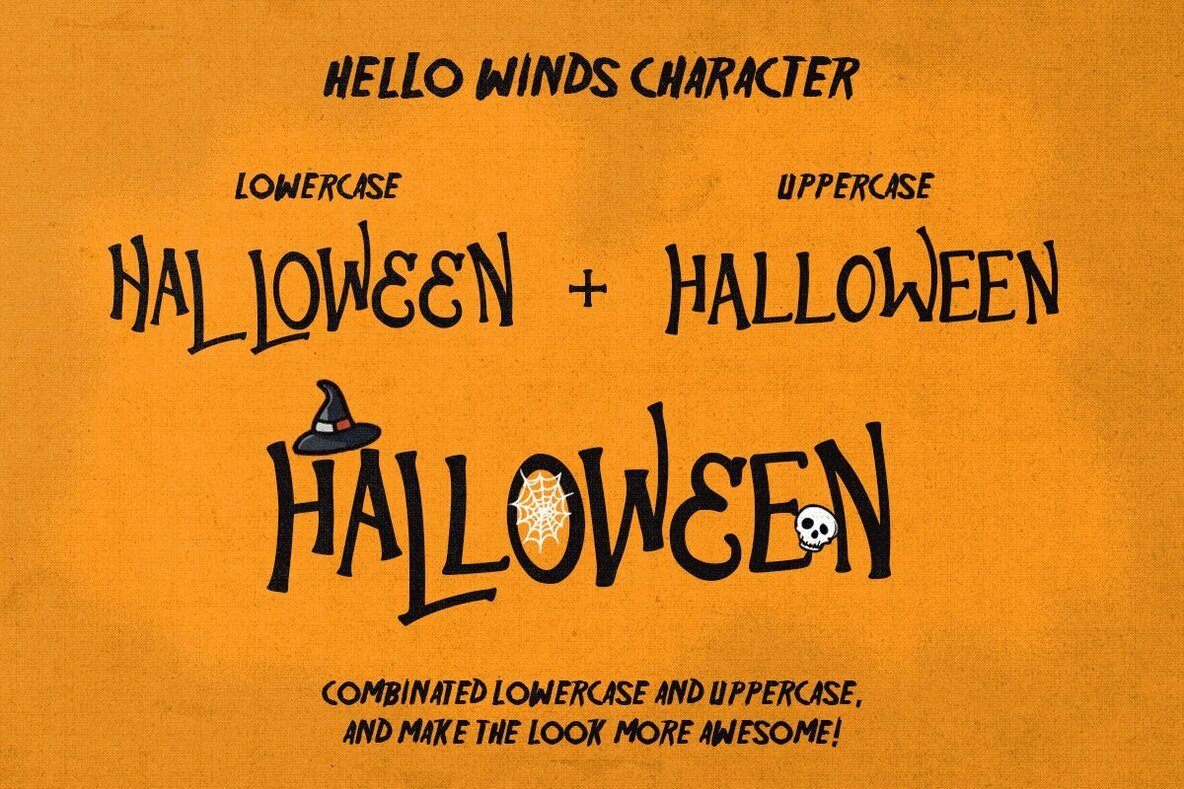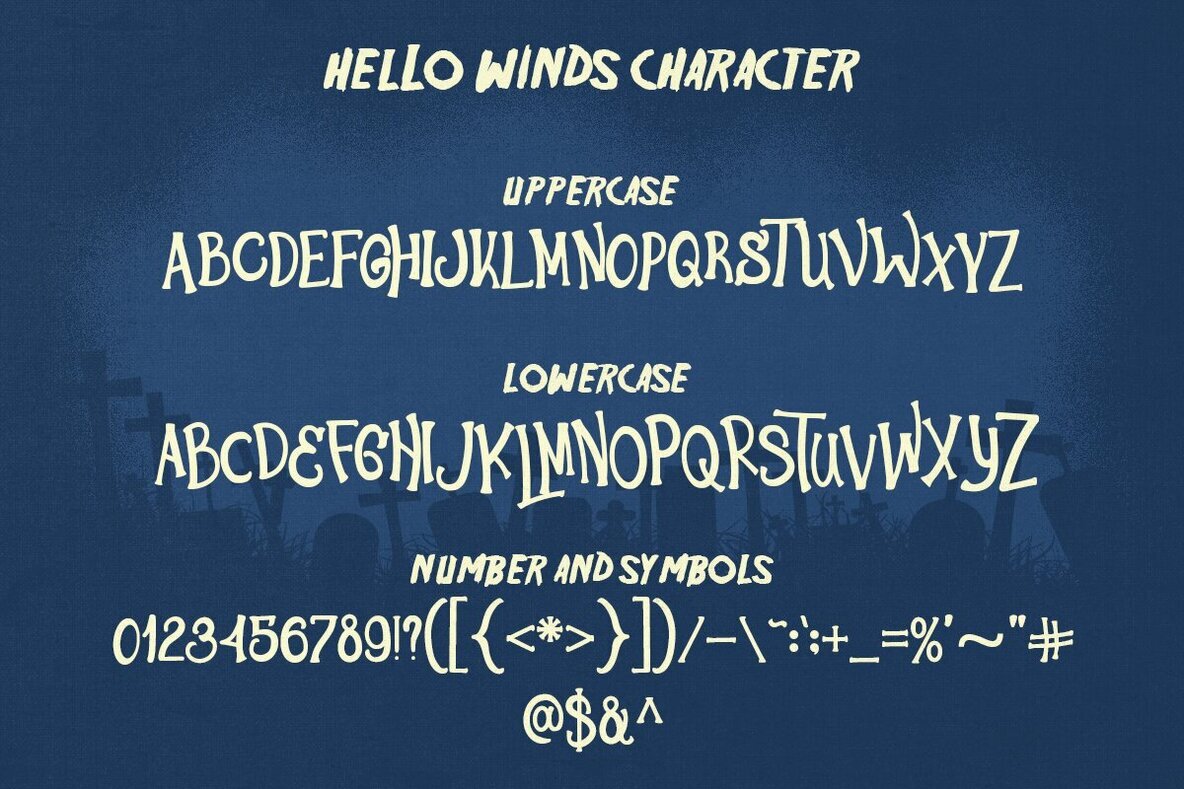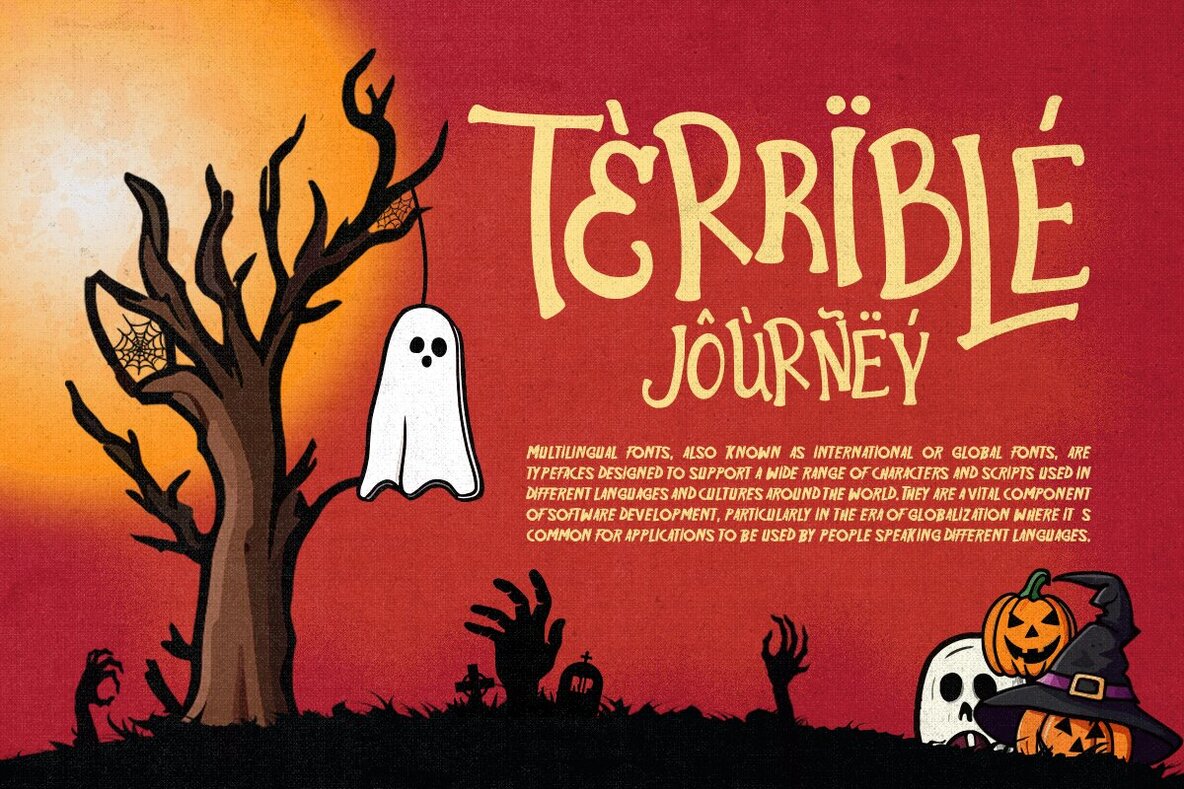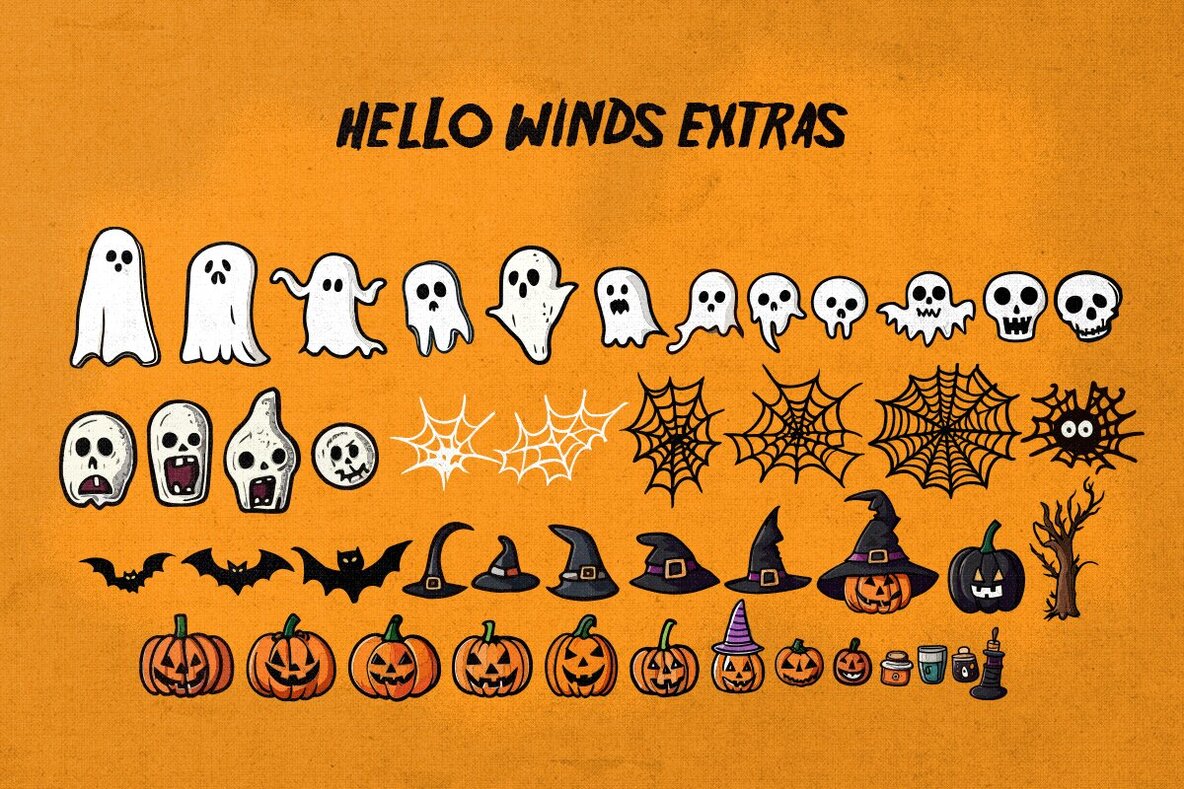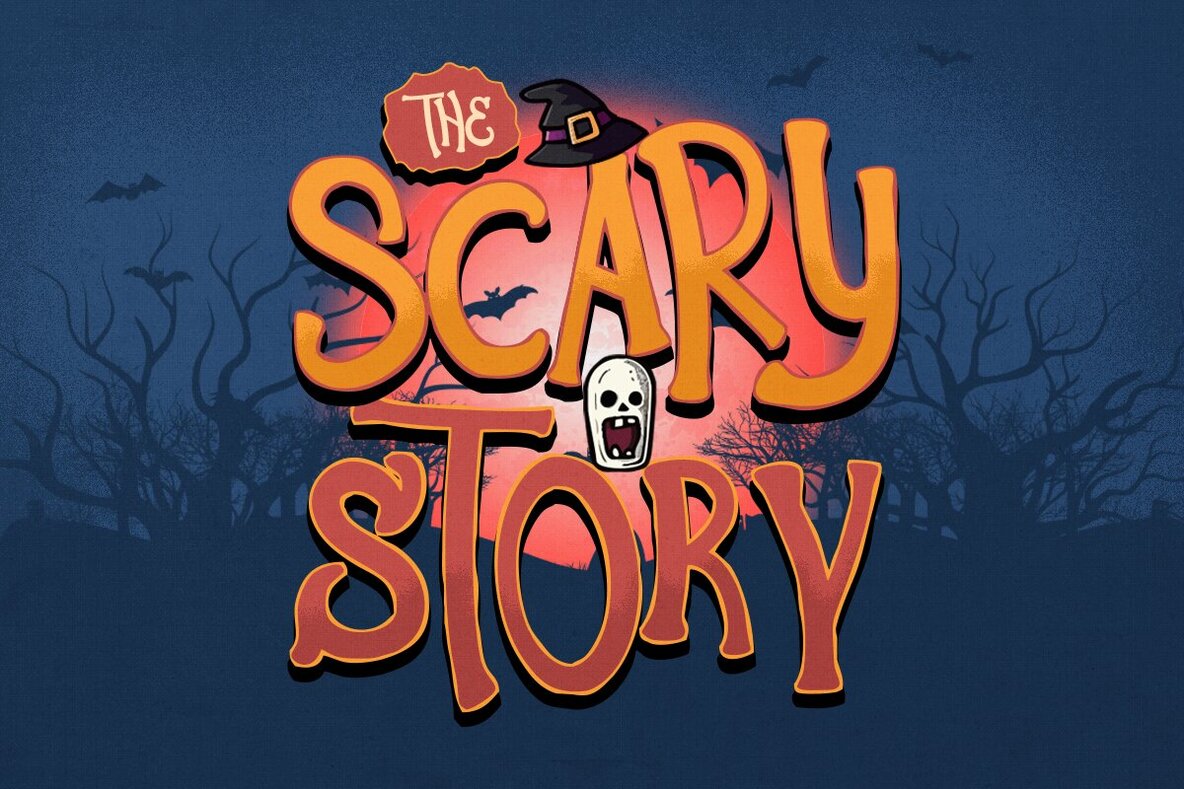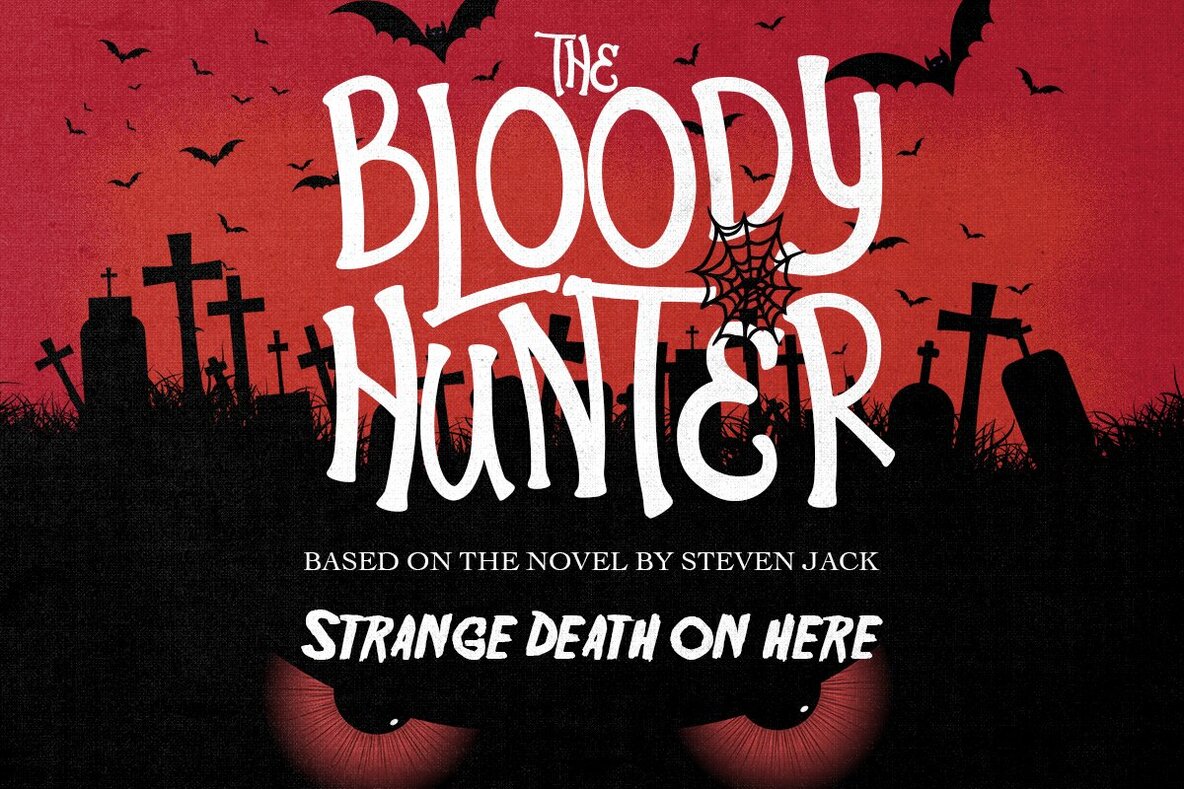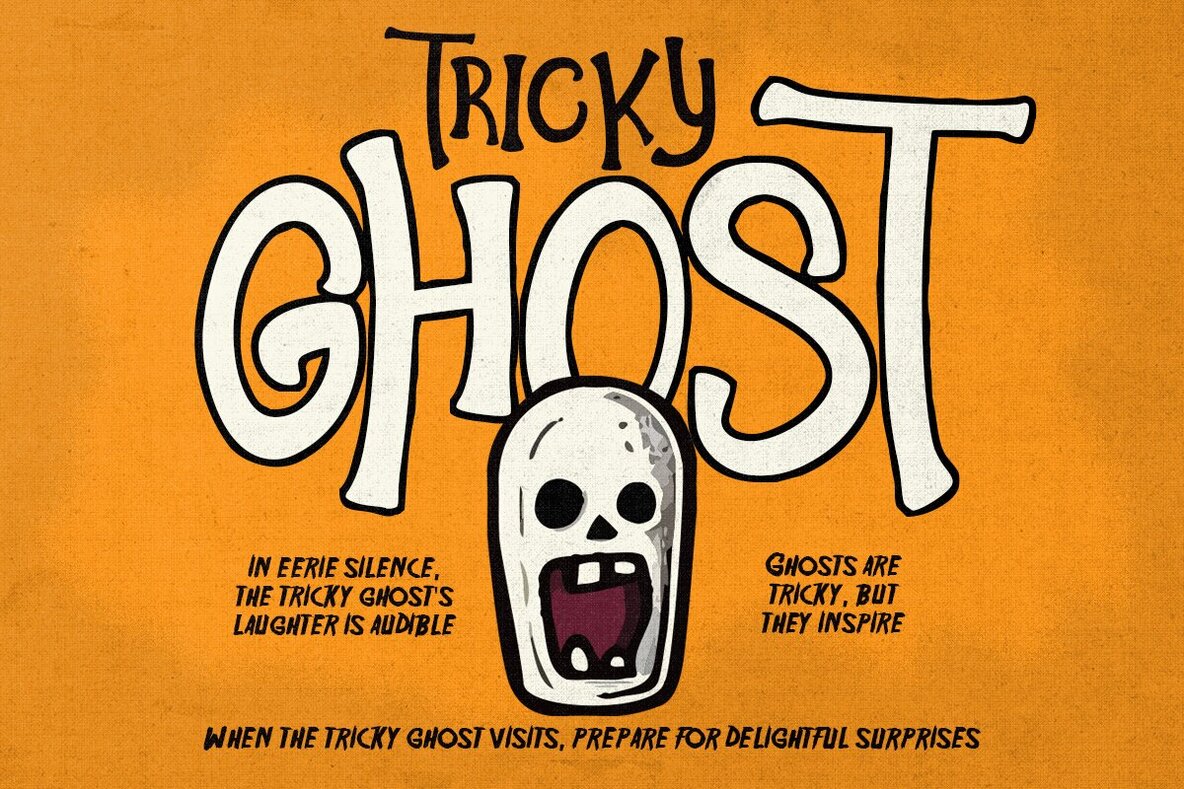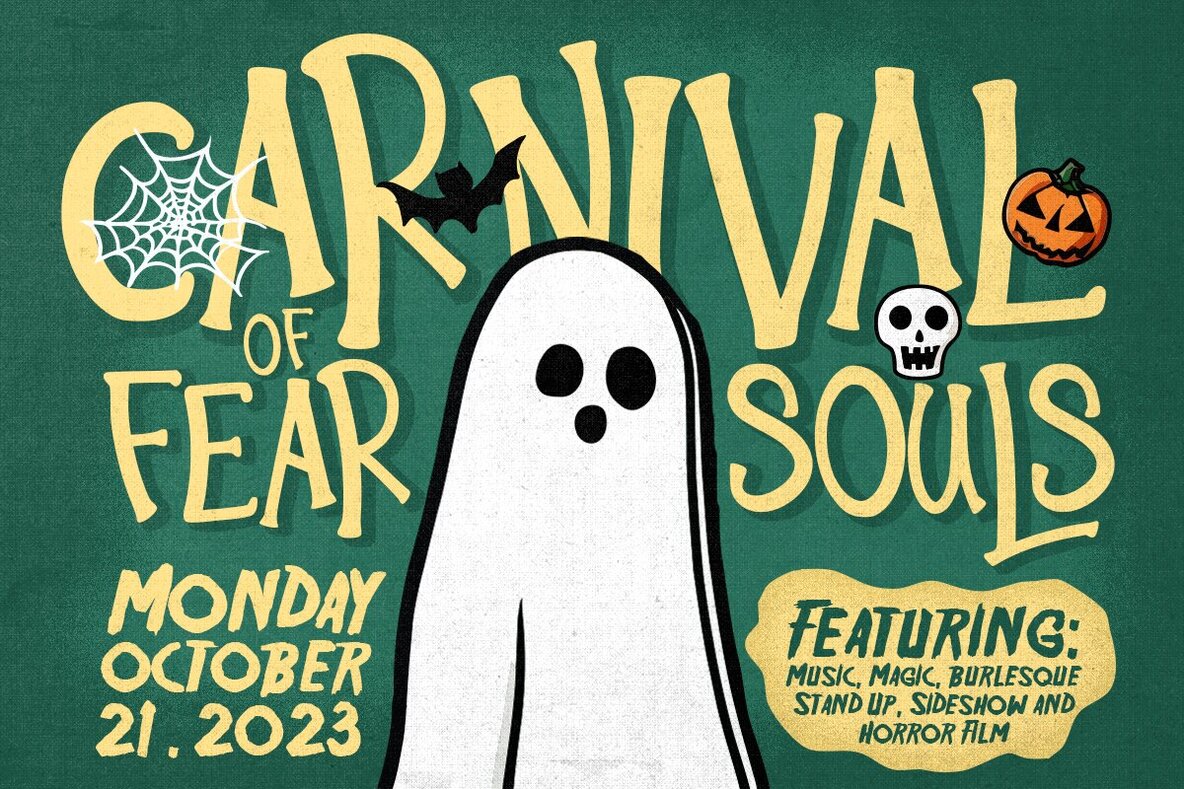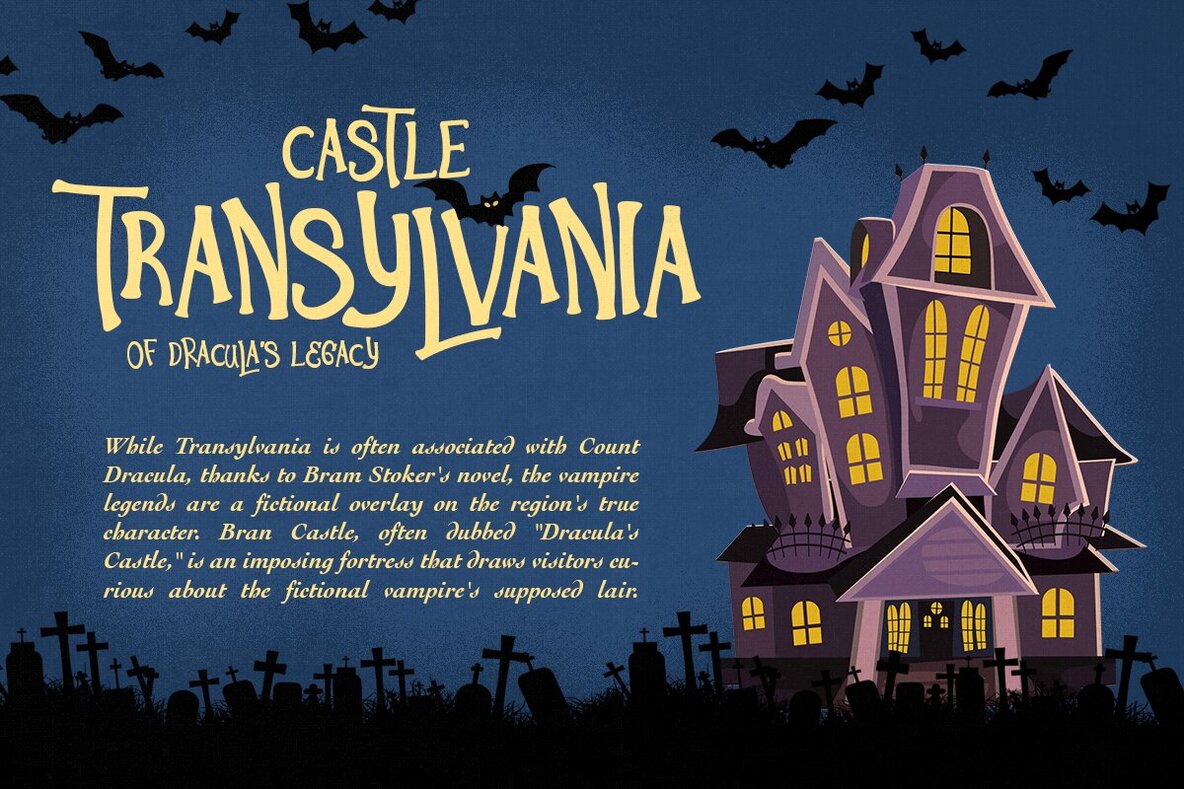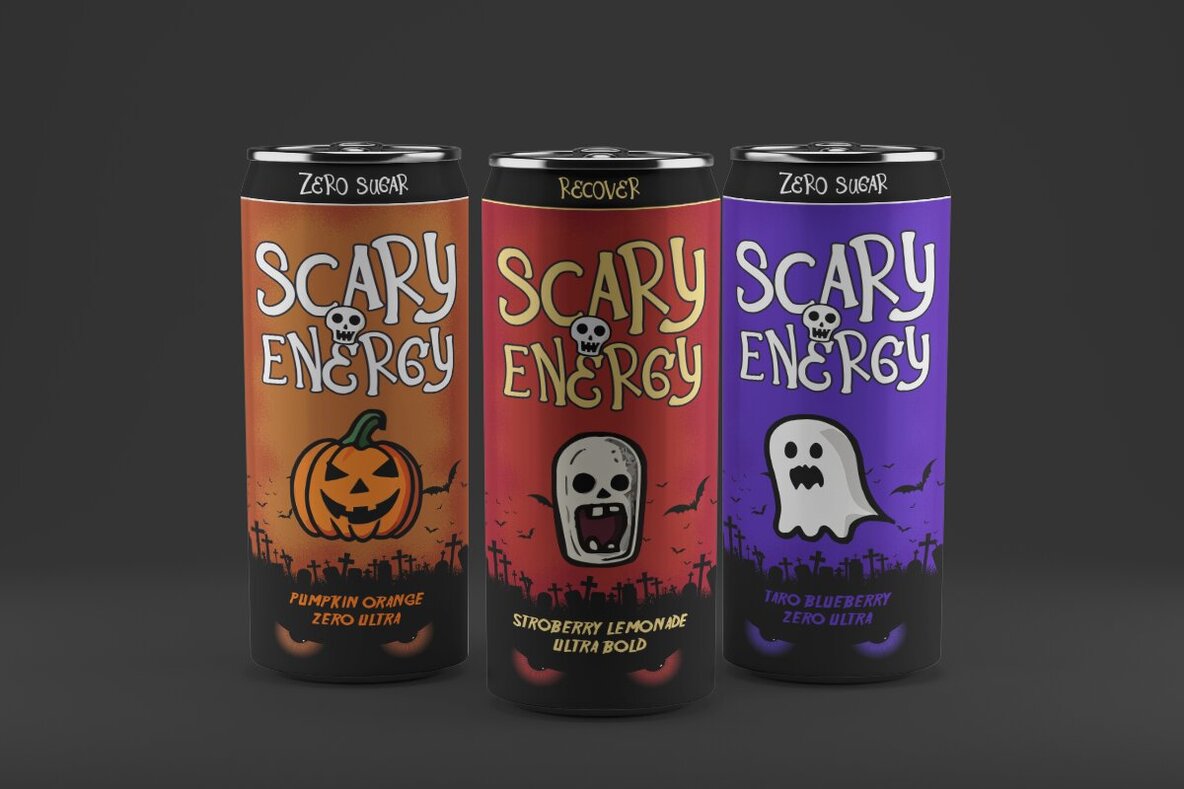
Hello Winds Font
Hello Winds Regular
Unleash the spirit of Halloween with Hello Winds, a font designed to add a spooky touch to your creative projects. This atmospheric display font is perfect for all your Halloween decor and crafting needs. With the included doodles and easy access to special characters, this font set offers everything needed to enhance your Halloween-themed designs.Hello Winds: Eerie Display Font for Halloween